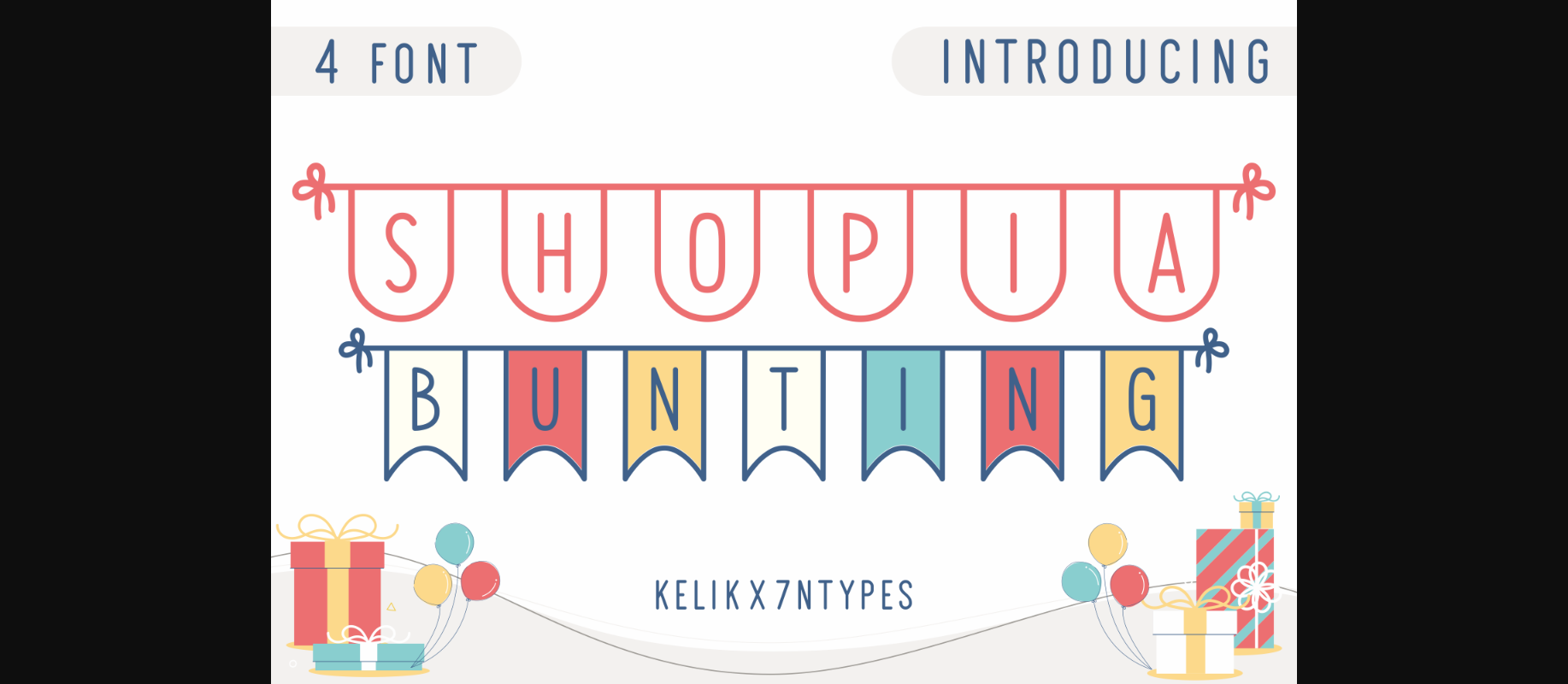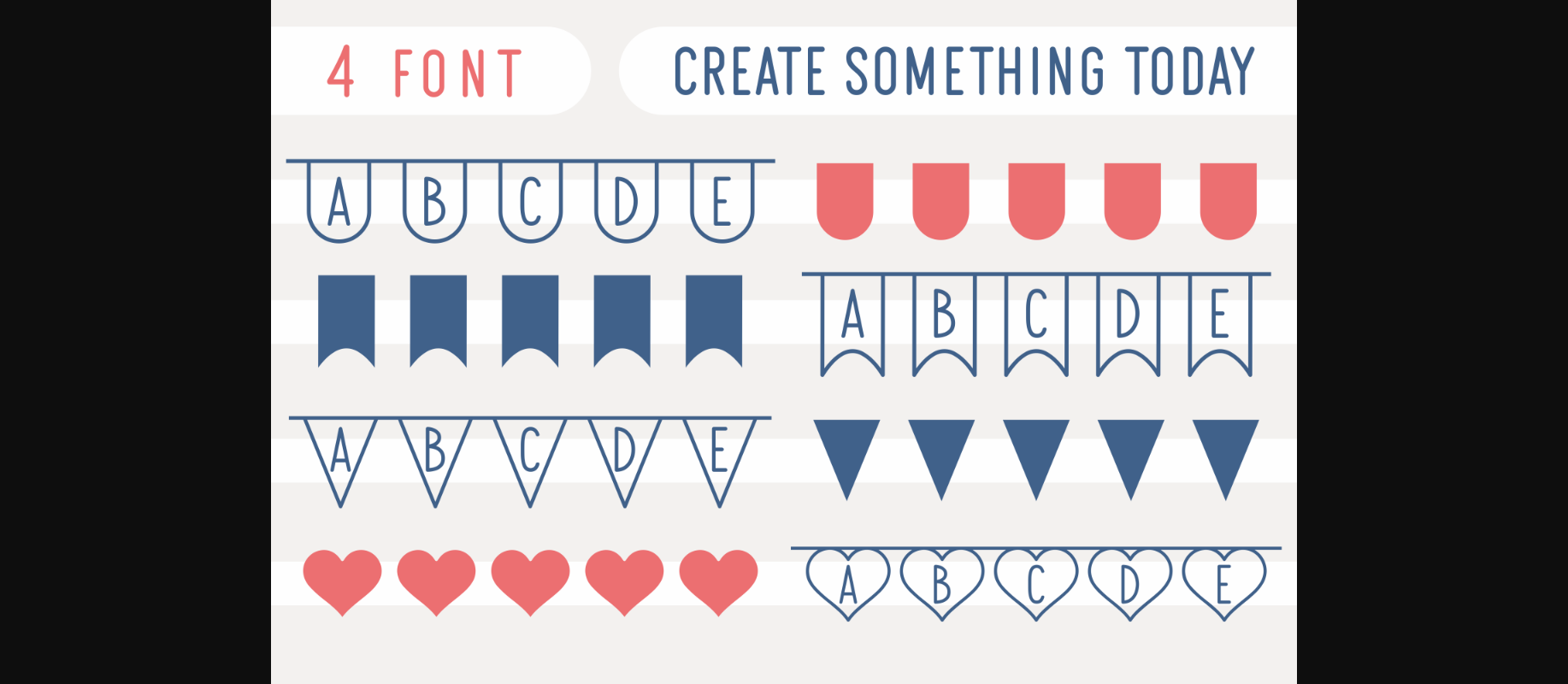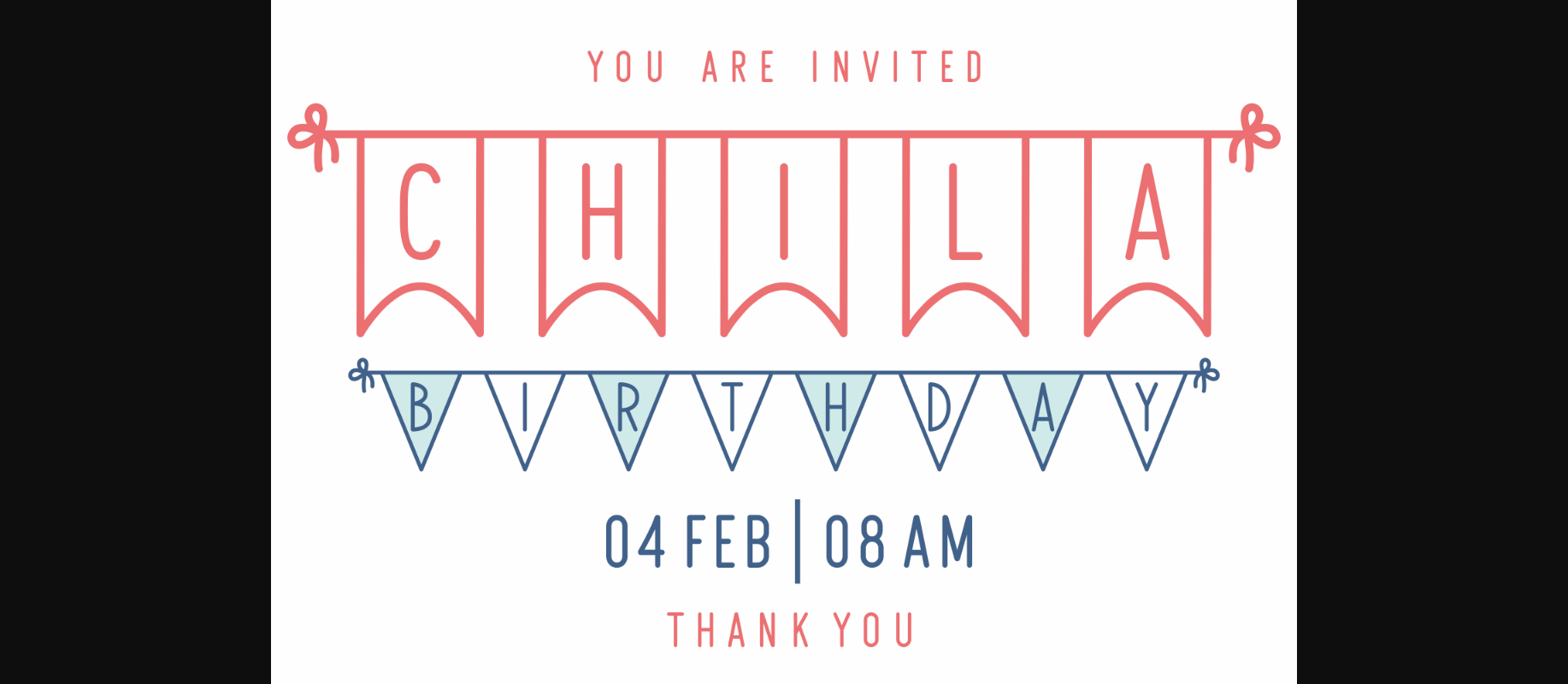
About Shopia Bunting Font
Shopia Bunting is an awesome decorative font that will look stunning on any poster flyer or print. Use this font for your designs and explore its endless possibilities.